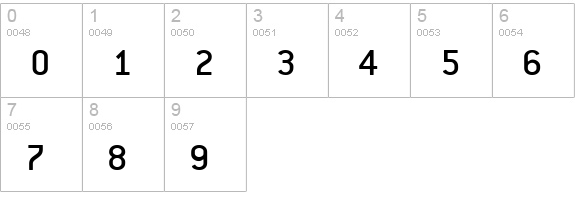
PFPremier Medium Font Details
PFPremier Medium is a balanced, medium-weight variant in the PFPremier typeface family \xE2\x80\x94 well suited to sub-headlines, navigation, and balanced editorial work.
Introducing PFPremier Medium font, a versatile and modern typeface that strikes the perfect balance between elegance and readability. With its clean lines and sophisticated design, this font exudes professionalism and style, making it perfect for a wide range of projects. PFPremier Medium is ideal for creating eye-catching headlines, striking logos, elegant invitations, and much more. The best part? PFPremier Medium font is available for free download at FontsMarket.com, allowing you to elevate your design projects without breaking the bank. Don't miss out on this opportunity to add a touch of sophistication to your work with the exquisite PFPremier Medium font. Download it today and experience the power of premium typography at your fingertips.